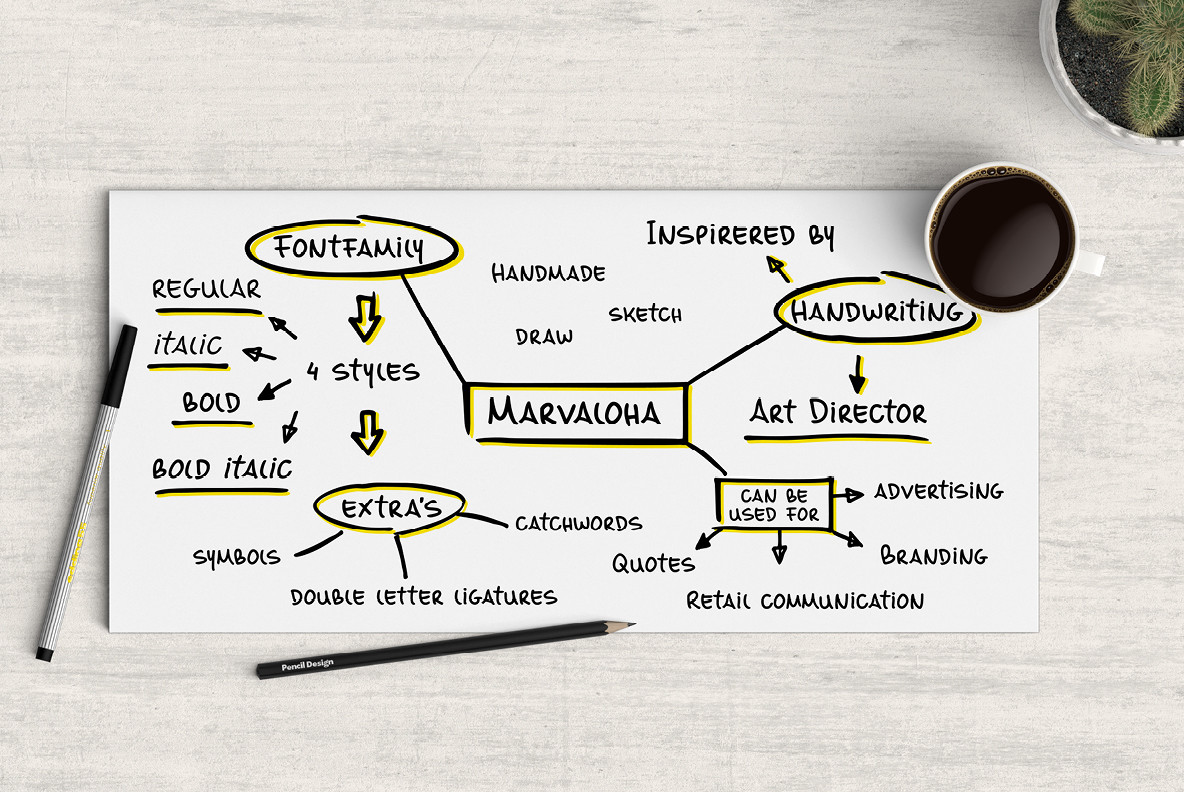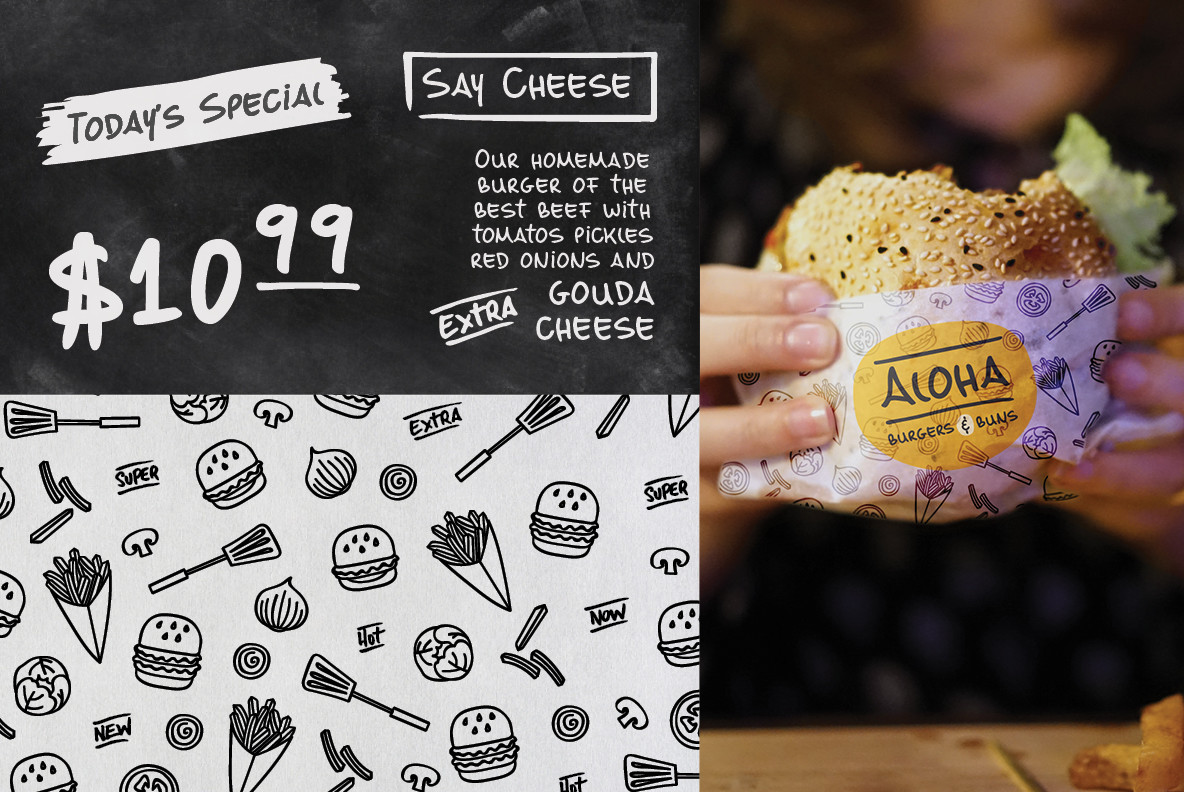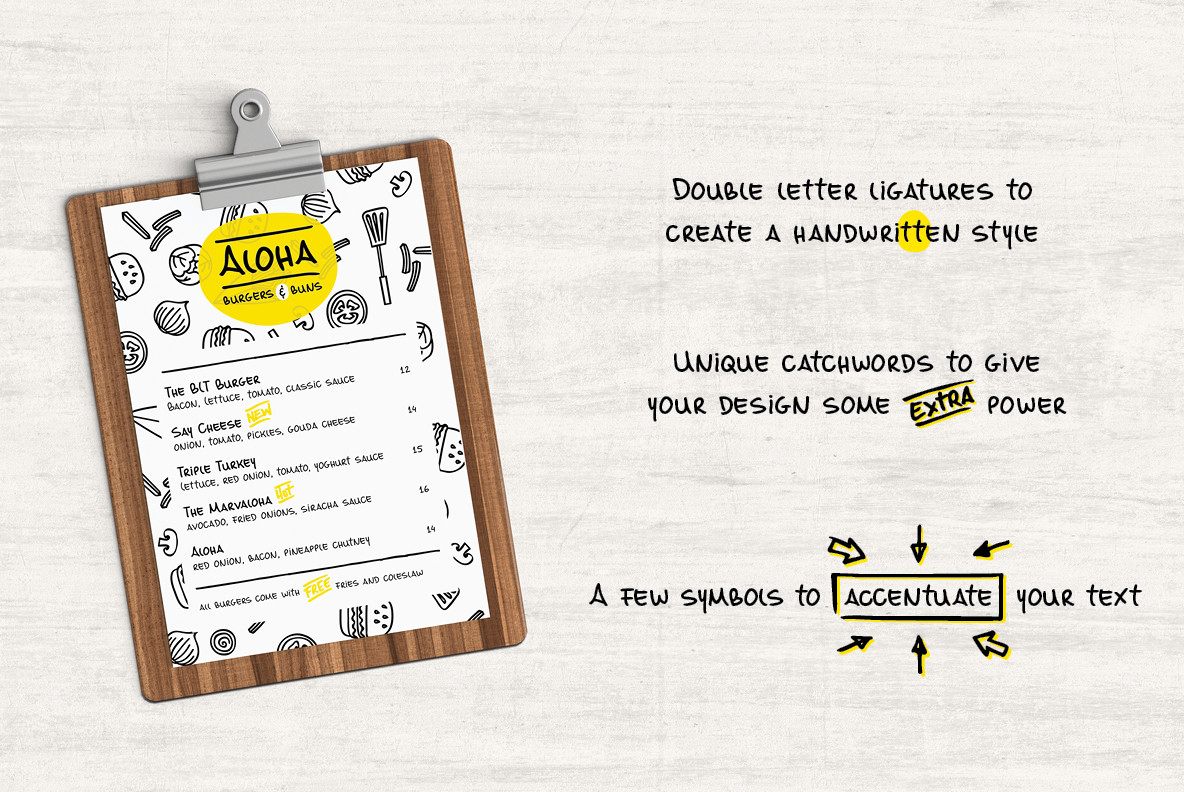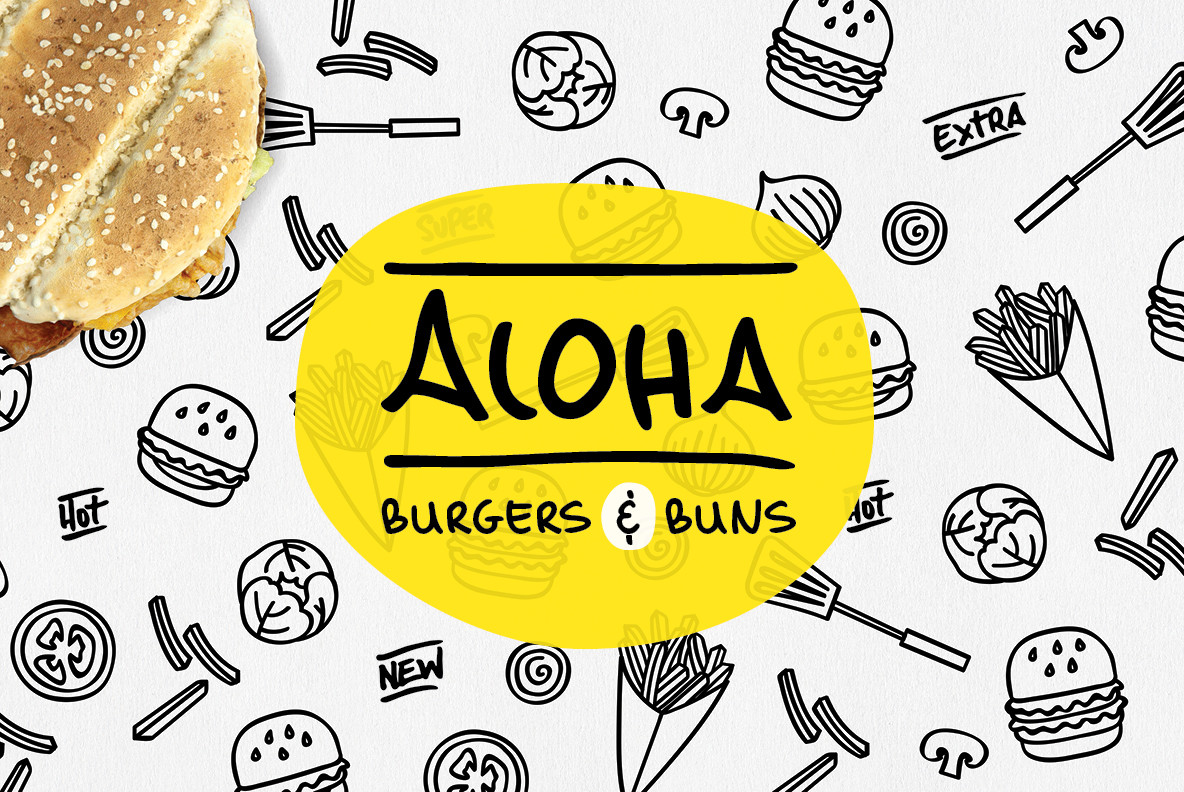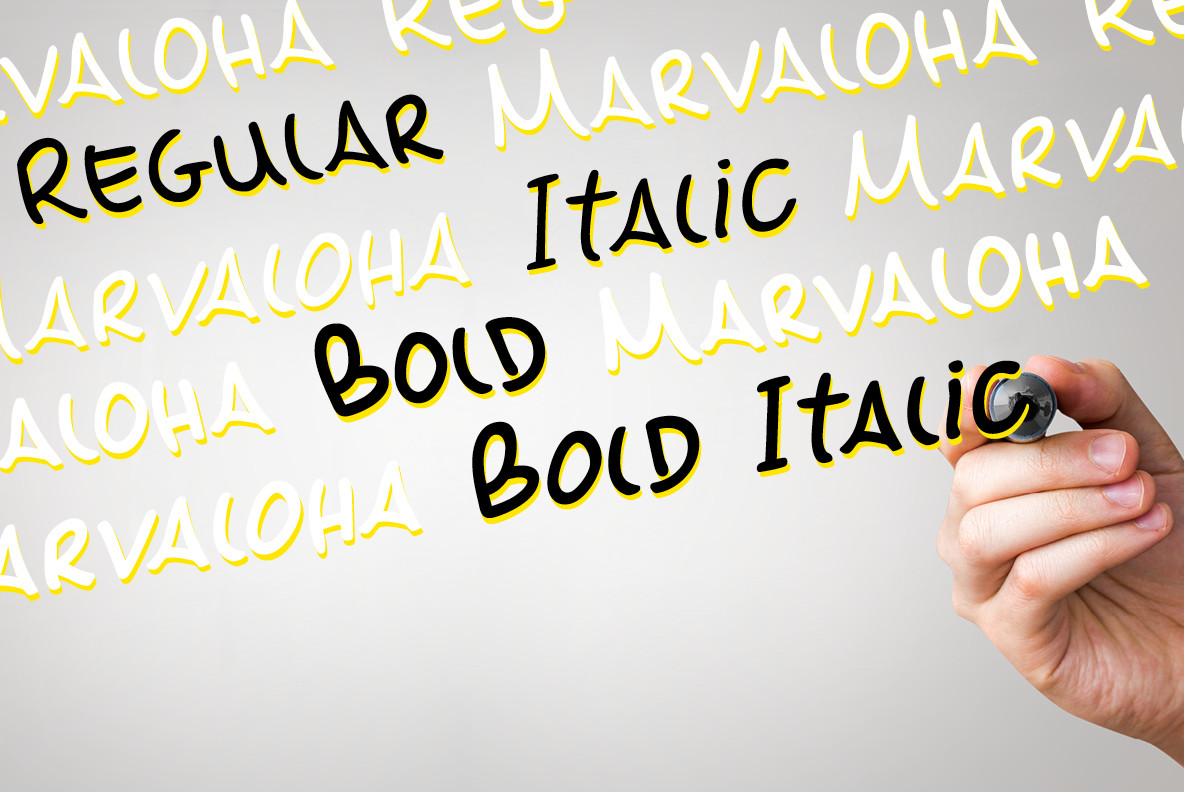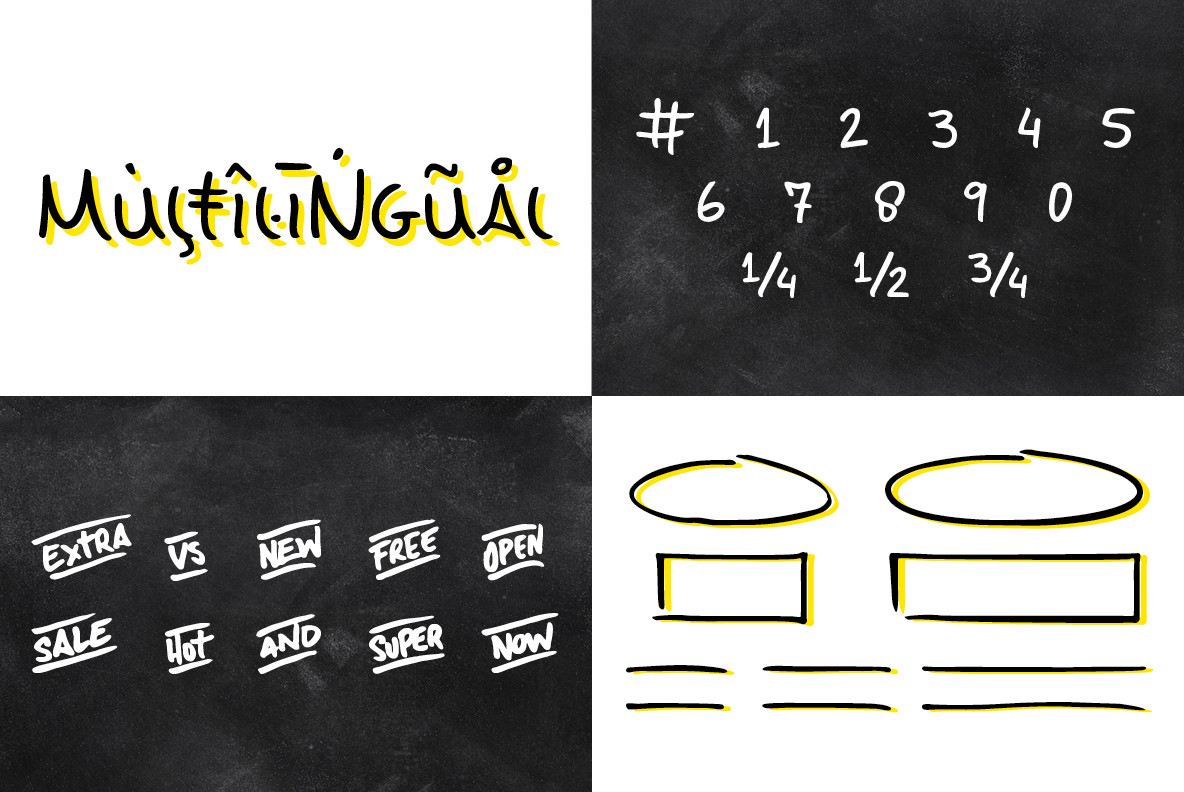
Marvaloha Font
Designed by Marloes Versluys, Marvaloha is based on the handwriting of an Advertising creative director. The casual but powerful strokes he uses for sketching are also visible in his writing. The Marvaloha font family consists of the original Marvaloha Regular and a Bold version. Both have matching Italics.
All four styles have double letter ligatures and a set of symbols and catchwords to give your design some extra power.